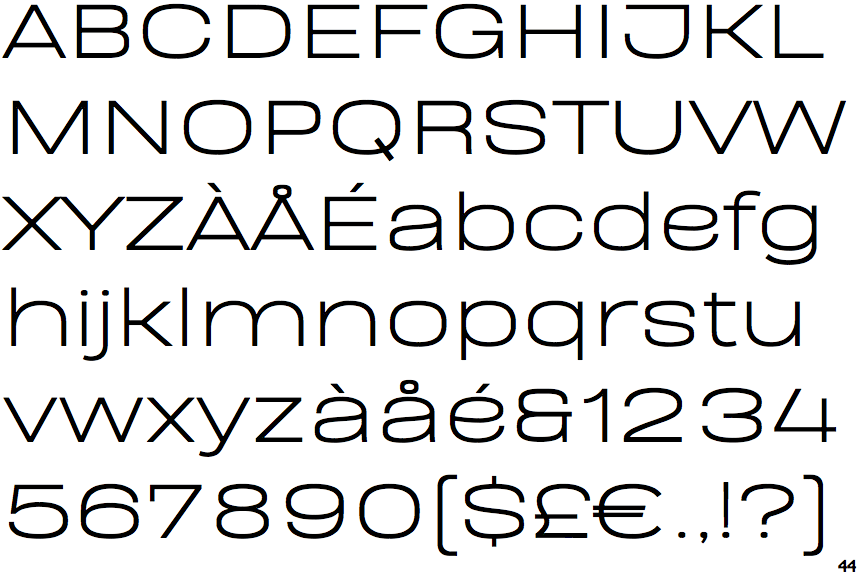
Beautifully Delicious Sans Font
Beautifully Delicious Sans Font - Web sans serif font also contain some stylistic alternates and presented in 4 weights: Web beautifully delicious font is a new font family that combines elegant extended sans serif fonts and a signature script. Thin, regular, bold and black.
Thin, regular, bold and black. Web sans serif font also contain some stylistic alternates and presented in 4 weights: Web beautifully delicious font is a new font family that combines elegant extended sans serif fonts and a signature script.
Web beautifully delicious font is a new font family that combines elegant extended sans serif fonts and a signature script. Web sans serif font also contain some stylistic alternates and presented in 4 weights: Thin, regular, bold and black.
Beautifully Delicious is a new font family that combines an elegant
Web sans serif font also contain some stylistic alternates and presented in 4 weights: Web beautifully delicious font is a new font family that combines elegant extended sans serif fonts and a signature script. Thin, regular, bold and black.
Thin, regular, bold and black. Web sans serif font also contain some stylistic alternates and presented in 4 weights: Web beautifully delicious font is a new font family that combines elegant extended sans serif fonts and a signature script.
Web sans serif font also contain some stylistic alternates and presented in 4 weights: Web beautifully delicious font is a new font family that combines elegant extended sans serif fonts and a signature script. Thin, regular, bold and black.
Thin, regular, bold and black. Web sans serif font also contain some stylistic alternates and presented in 4 weights: Web beautifully delicious font is a new font family that combines elegant extended sans serif fonts and a signature script.
Thin, regular, bold and black. Web beautifully delicious font is a new font family that combines elegant extended sans serif fonts and a signature script. Web sans serif font also contain some stylistic alternates and presented in 4 weights:
Web beautifully delicious font is a new font family that combines elegant extended sans serif fonts and a signature script. Web sans serif font also contain some stylistic alternates and presented in 4 weights: Thin, regular, bold and black.
Web Sans Serif Font Also Contain Some Stylistic Alternates And Presented In 4 Weights:
Web beautifully delicious font is a new font family that combines elegant extended sans serif fonts and a signature script. Thin, regular, bold and black.